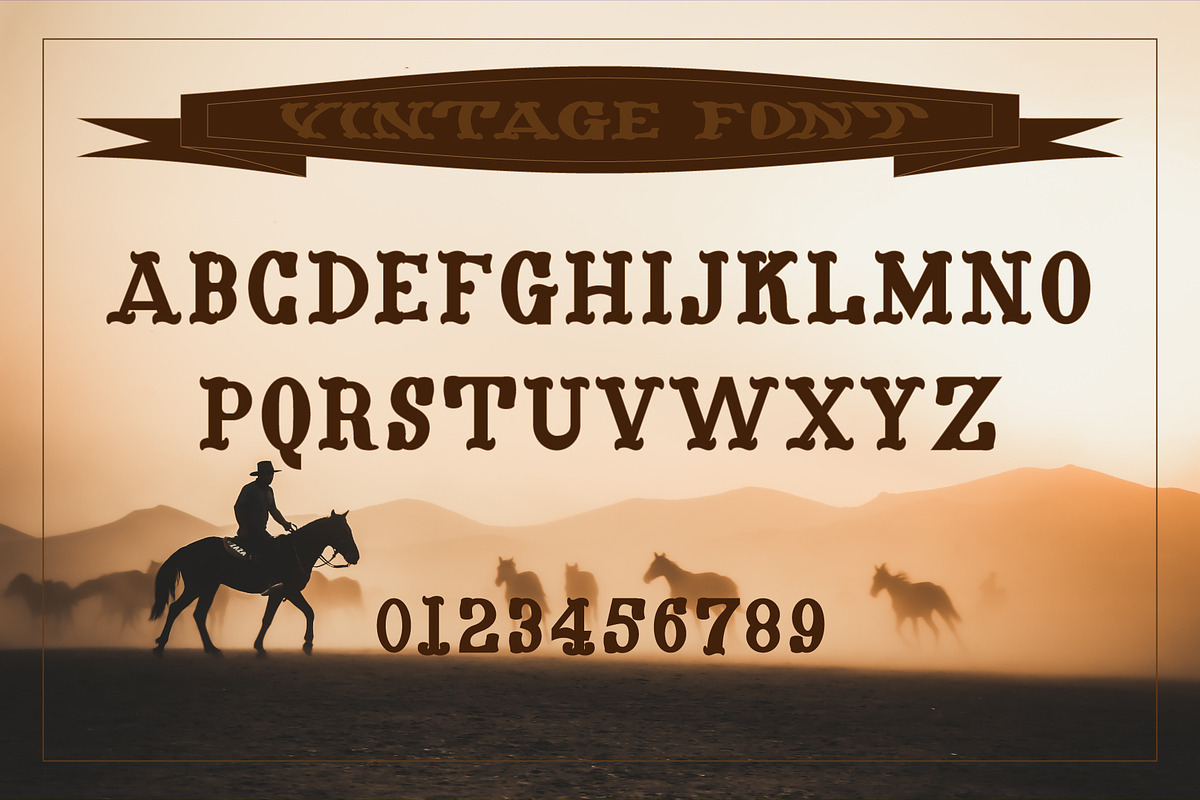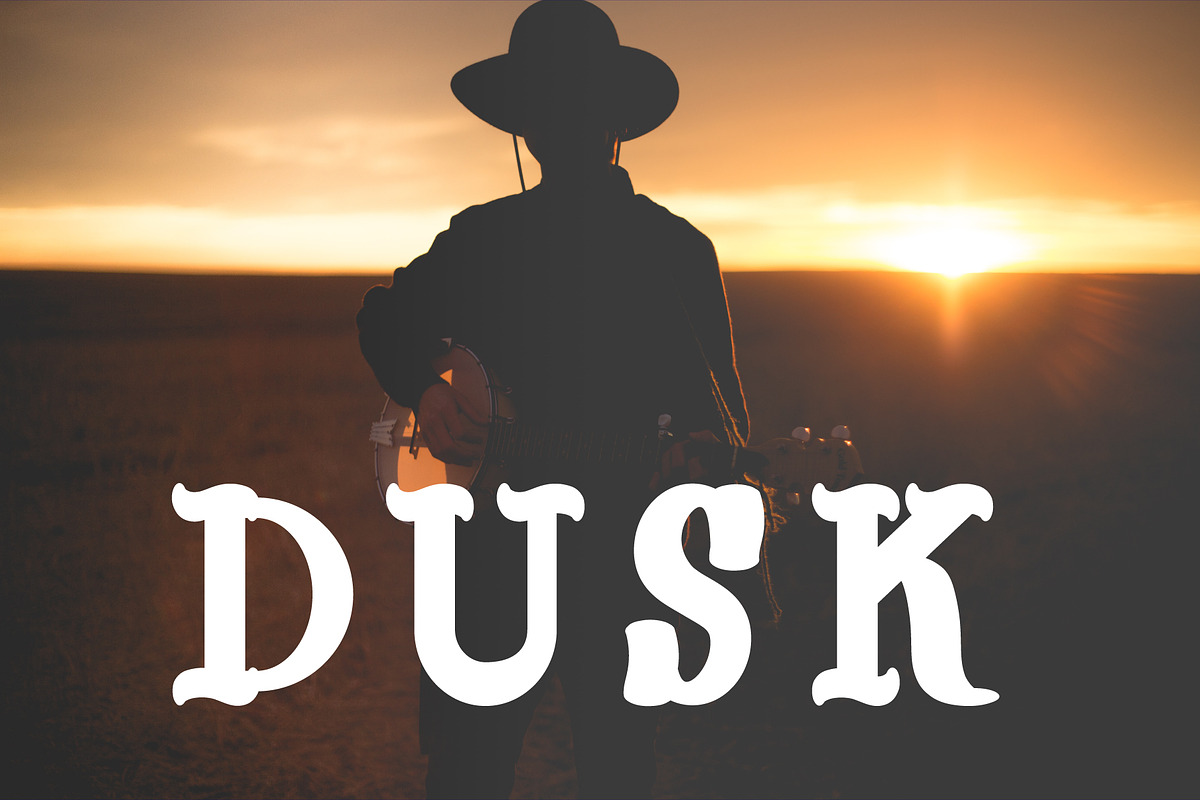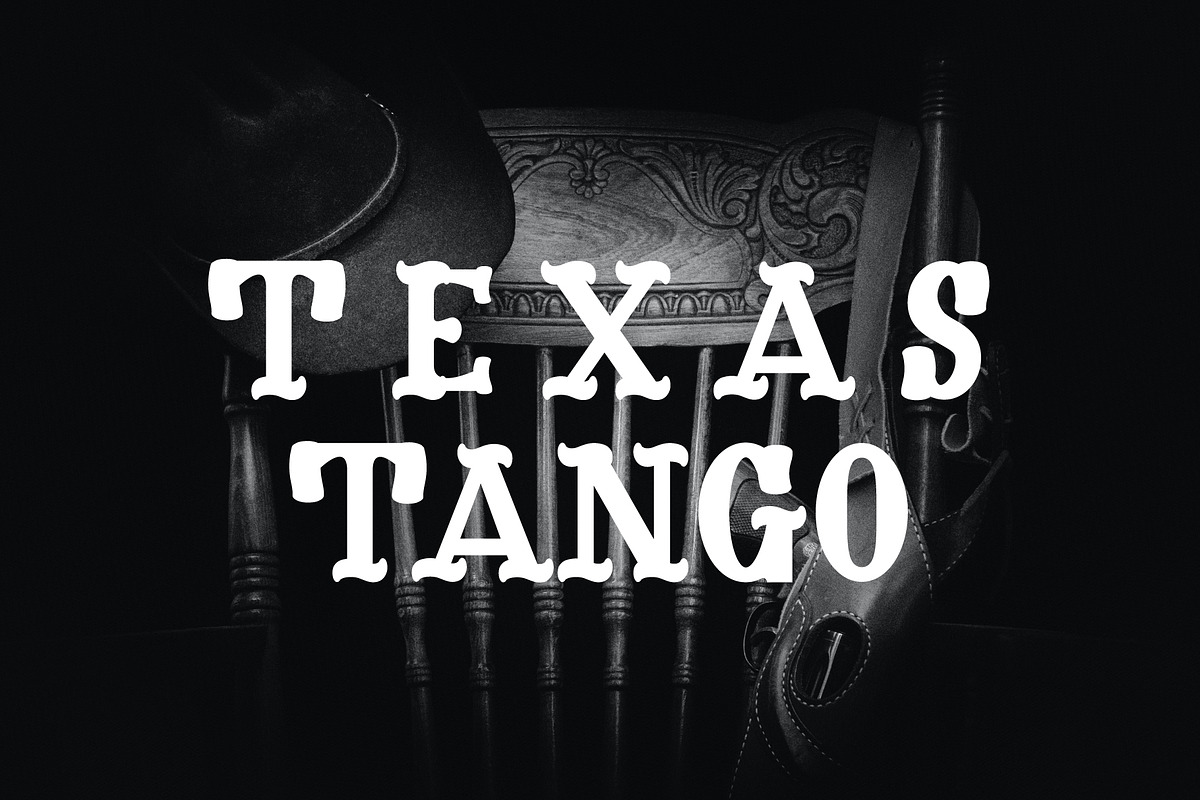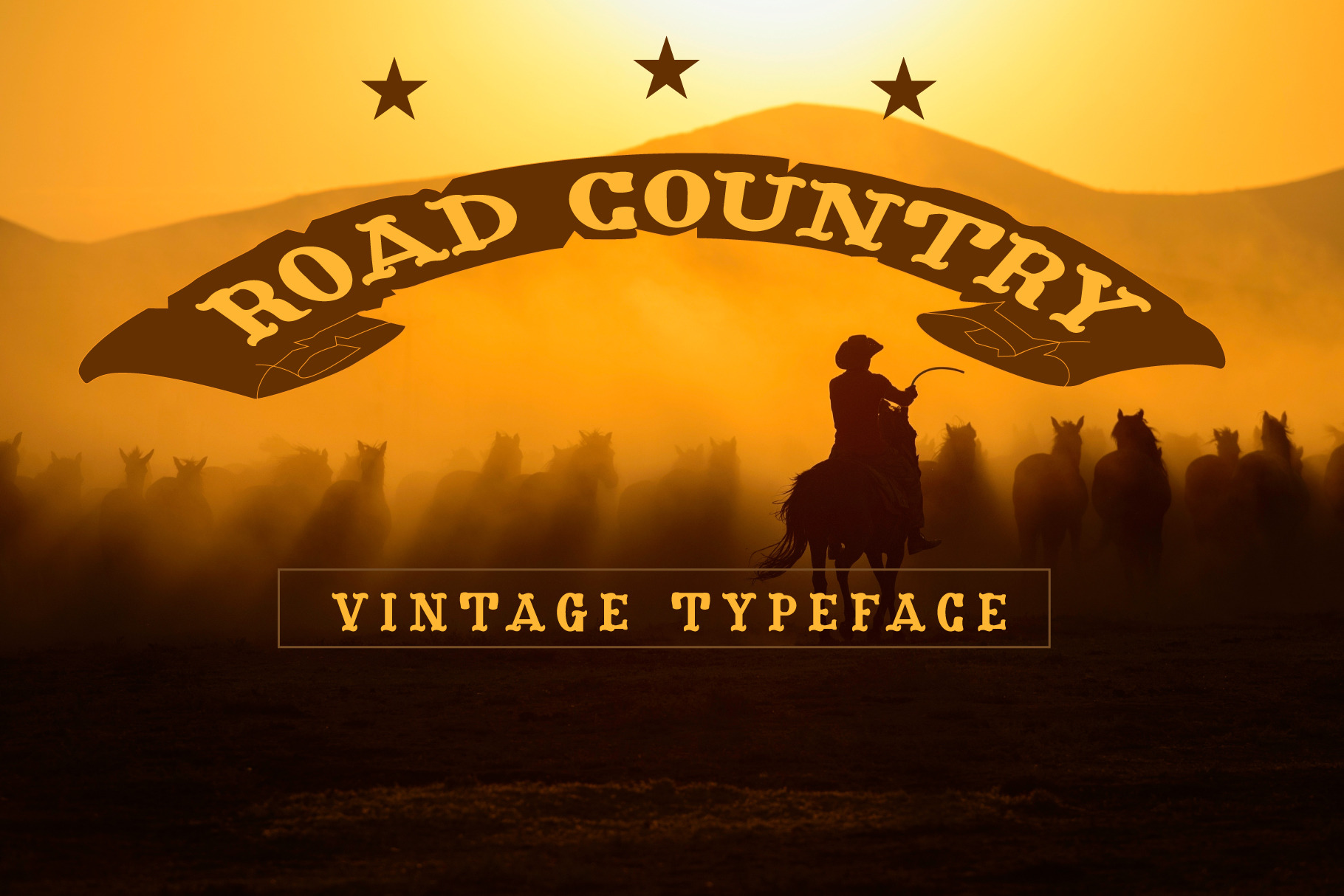
Road Country - Vintage Font
Introducing Road Country, a vintage slab serif font. So perfect for you who needs a typeface for logo designs, magazine, social media, brochure, and many more.